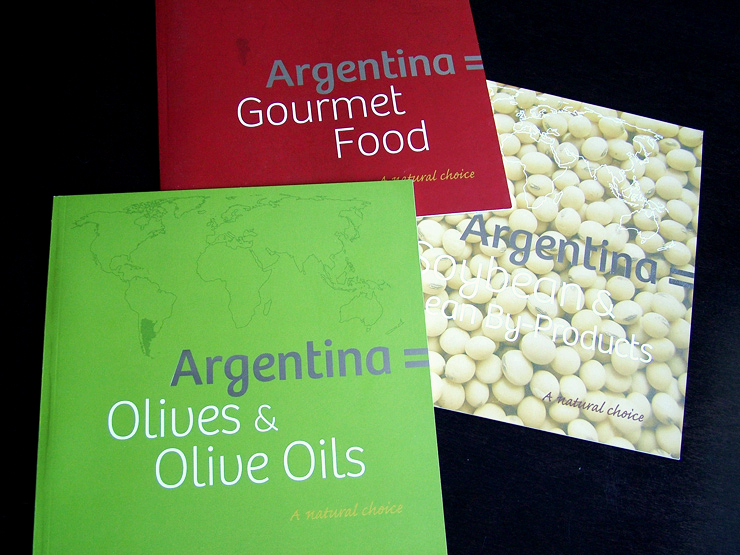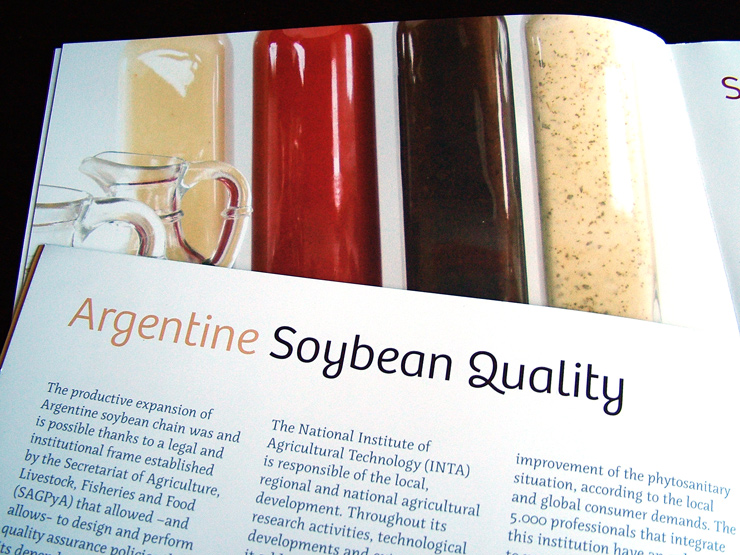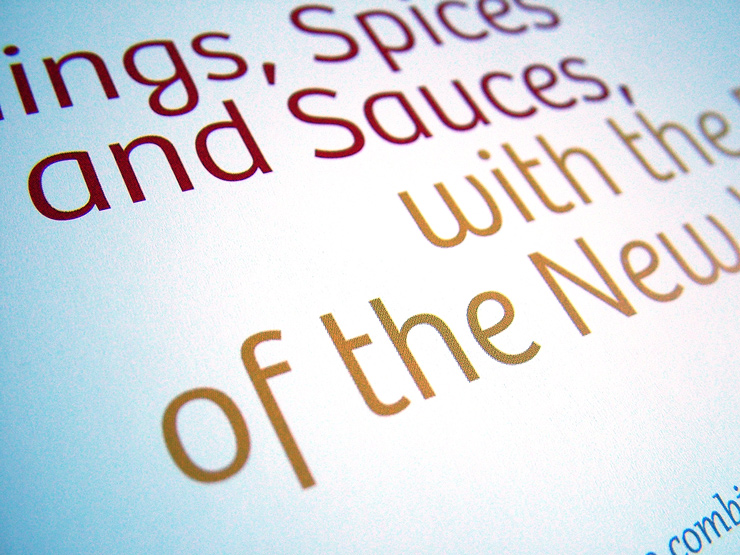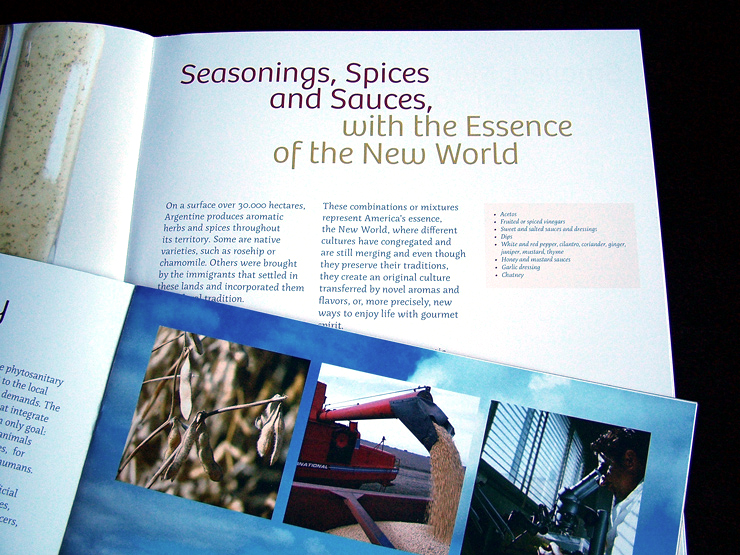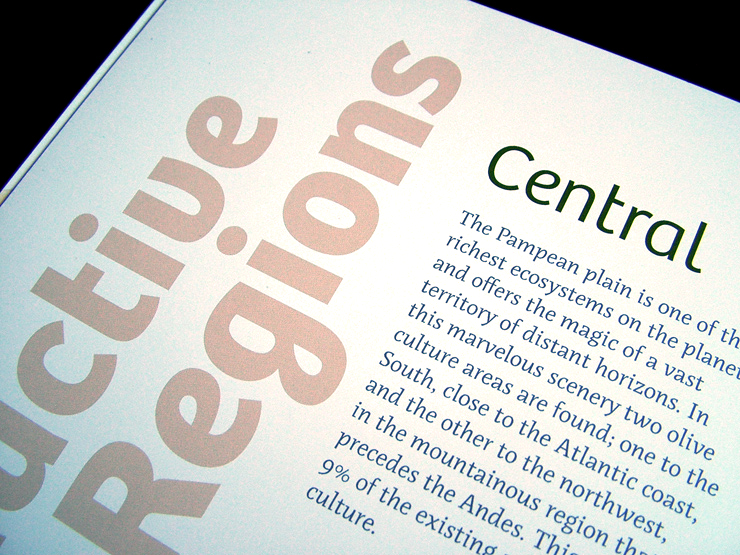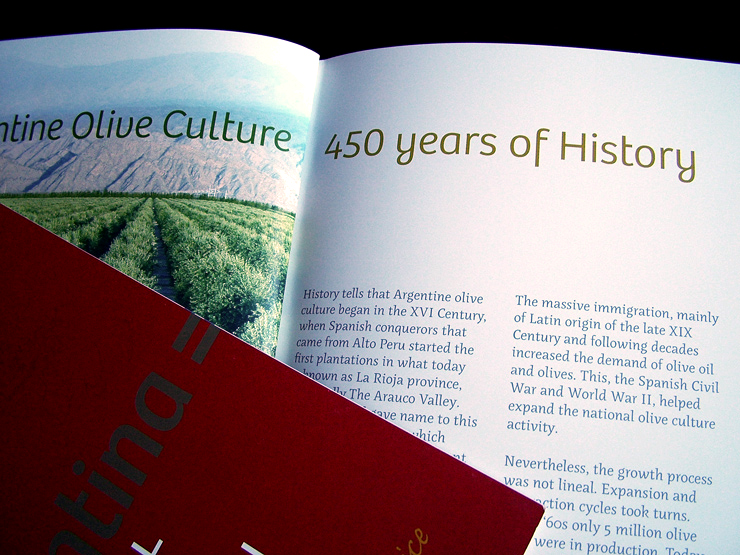
Gourmet products
Bree was selected as the titling face for a new series of brochures featuring argentinian export offers in gourmet products. Designers Pablo Caruso y Sofia Castro Viera (www.carusodesign.com.ar) said: "we chose Bree because the best way of representing Argentina internationally is through design elements of the highest quality."